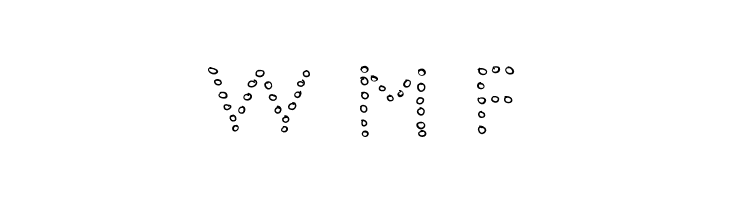
A bold, cursive font with a playful and energetic style.
A bold, thick-stroked font with a strong, impactful presence.
A bold, decorative font with a staggered, shadowed effect for a 3D appearance.
A bold, condensed, italic font with a decorative outline and modern appeal.
A bold, staggered italic font with a three-dimensional effect.
A bold, decorative font with a vintage, three-dimensional style.
A bold, italic font with strong outlines and a dynamic, modern style.
A bold, condensed font with a 3D shadow effect, perfect for impactful designs.
A playful, hand-drawn font with tall, narrow letters and a whimsical style.
A bold, modern font with strong, thick strokes and uniform width.
A tall, narrow, and whimsical font with a hand-drawn appearance.
A playful, bubble-like font with a retro vibe and consistent boldness.
A playful, bone-themed decorative font ideal for spooky designs.
A whimsical and eclectic font with playful, decorative elements.
A playful, hand-drawn font with a whimsical, childlike charm.
A playful, handwritten font with whimsical strokes and decorative symbols.
A digital, segmented font with an italic slant, inspired by LED displays.
A digital, segmented font with a futuristic, LED display style.
A bold, textured font with a distressed, grunge-like style.
A bold, distressed font with a grunge texture for impactful designs.
An elegant, bold italic serif font with a classic yet modern style.
A classic serif font with elegant, sharp serifs and a timeless design.
A bold, modern font with strong, uniform strokes and excellent readability.
A bold, classic serif font with strong strokes and pronounced serifs.
A bold, rounded font with a playful and cohesive design.
A playful, handwritten font with a casual and whimsical style.